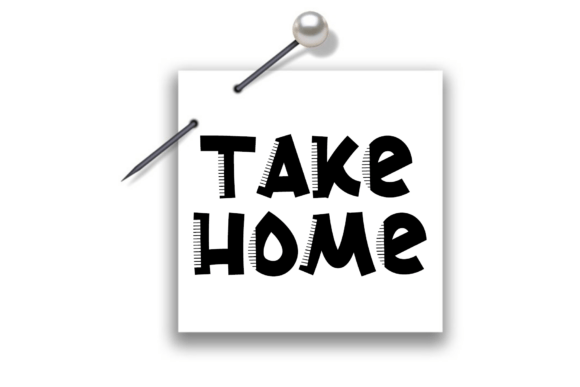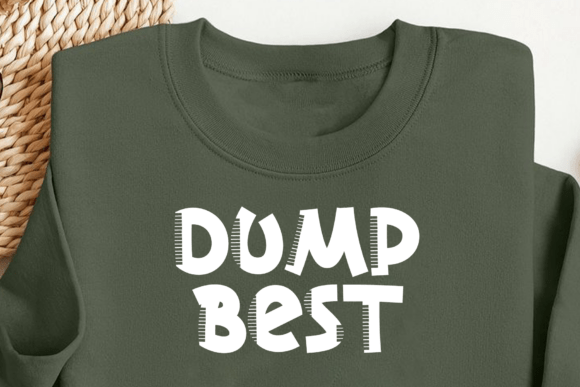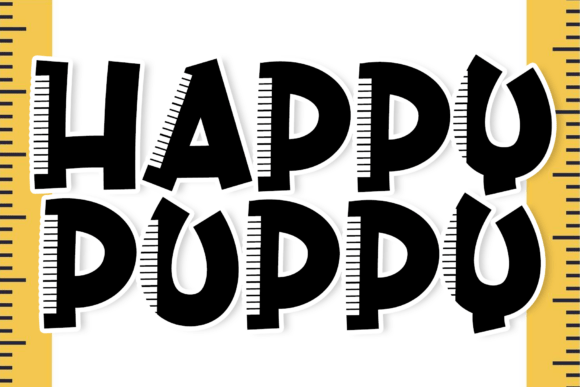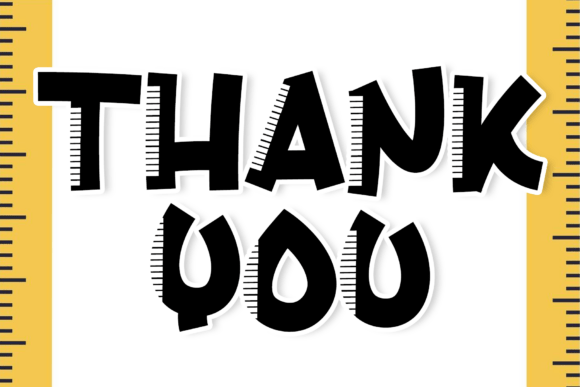
Introduction to Pencil Ruler Font
Have you ever stared at a blank canvas, pencil in hand, waiting for inspiration to strike? That’s exactly where I was when I discovered the Pencil Ruler Font – a lovely and timeless handwritten font that brought my design to life. The moment I typed out my first sentence, I knew I had found a true gem.
This beautiful font is more than just a design resource – it’s a game-changer for any creative project. With its unique and beautiful touch, the Pencil Ruler Font adds a personal and eye-catching element to logos, branding, and quotes. Its high quality and versatility make it a valuable asset for designers who want to elevate their work and stand out from the crowd.
Whether you’re working on a free download or a commercial project, the Pencil Ruler Font is sure to impress. With a transparent background, it’s perfect for overlaying on images or using as a standalone element. Get ready to unleash your creativity and make your designs shine with the Pencil Ruler Font.
Key Features of Pencil Ruler Font
- Unique, hand-drawn design with a nostalgic feel, perfect for creative projects.
- Perfect design resource for those seeking a distinctive, vintage aesthetic.
Honest Review: Pencil Ruler Font
I recently had the chance to work with the Pencil Ruler Font, and I must say it’s been a game-changer for my design projects. This font is perfect for those looking for a unique and creative touch.
- High-quality design: The Pencil Ruler Font is crisp and clear, making it ideal for print and digital designs.
- Limited font styles: While the Pencil Ruler Font is a great addition to any design library, it’s a bit limited in terms of font styles.
- No bold or italic options: If you’re looking for a font with bold or italic options, you might be disappointed.
Overall, I’m really impressed with the Pencil Ruler Font. It’s a great design resource for any creative project, and the free download makes it a must-have for designers. Just be aware of the limitations, and you’ll be all set to create some amazing designs!
Pencil Ruler Font is a unique and creative design resource perfect for adding a touch of nostalgia to your next project. With a high-quality, free download, you can easily incorporate this font into your design.
Getting the Most Out of Pencil Ruler Font
To get the most out of Pencil Ruler Font, experiment with different font sizes, styles, and combinations. You can also use the font in conjunction with other design elements to create a unique and eye-catching design.
Pencil Ruler Font is perfect for a variety of creative projects, including:
- Designing a retro-themed website or social media campaign
- Creating a vintage-inspired poster or flyer
- Adding a touch of nostalgia to a presentation or report